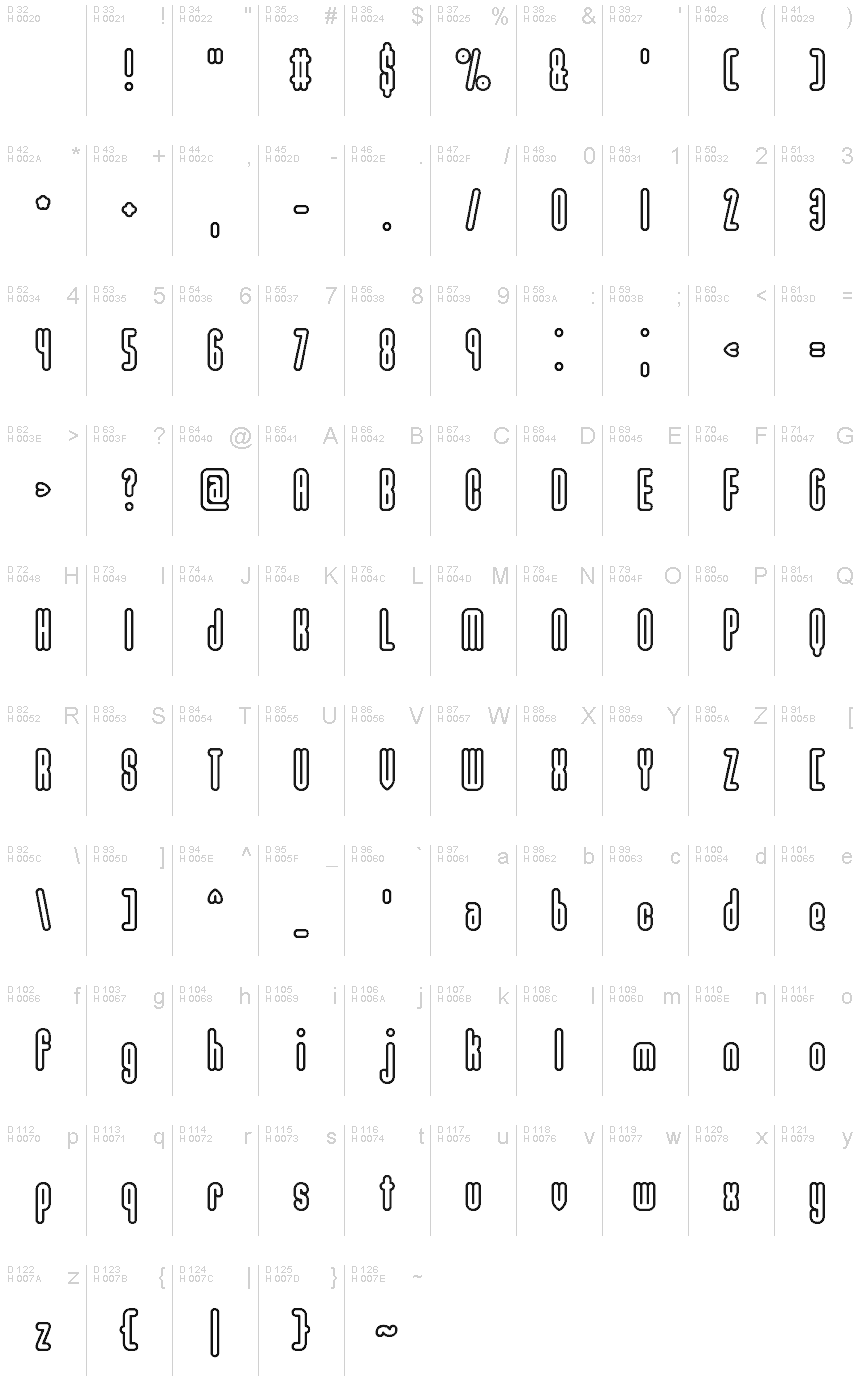
Unanimous BRK
Unanimous BRK is a display font crafted by ÆNIGMA FONTS, showcasing a unique blend of aesthetics that is both modern and striking. Its outlined, techno style exudes a contemporary vibe with an industrial flair, making it an excellent choice for projects that require a touch of futuristic sophistication.
The extra-condensed width of Unanimous BRK lends itself to creative uses where space is at a premium, yet impact is paramount. This font's sleek lines and bold presence are perfect for headlines, posters, branding, and anything that demands attention.
With its unmistakable character and clean construction, Unanimous BRK stands out in the realm of display typefaces. It encapsulates versatility and visual appeal—ideal for designers looking to push the boundaries of conventional typography without sacrificing readability or design integrity.
The extra-condensed width of Unanimous BRK lends itself to creative uses where space is at a premium, yet impact is paramount. This font's sleek lines and bold presence are perfect for headlines, posters, branding, and anything that demands attention.
With its unmistakable character and clean construction, Unanimous BRK stands out in the realm of display typefaces. It encapsulates versatility and visual appeal—ideal for designers looking to push the boundaries of conventional typography without sacrificing readability or design integrity.